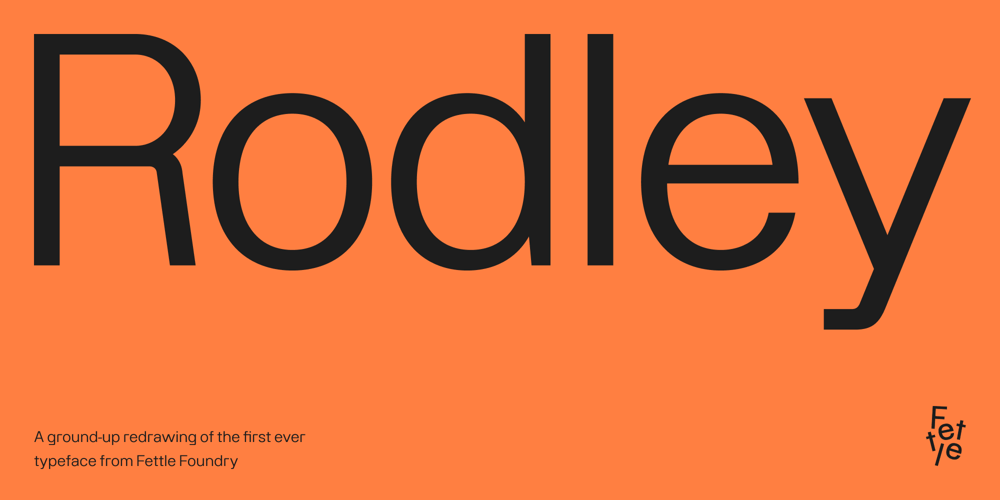
Rodley Font Family was designed by Thom Milson and published by Fettle Foundry. Rodley contains 10 styles and family package options. Rodley is a geometric sans-serif typeface and a ground-up redrawing of Bairne – the first ever typeface from Fettle Foundry – with a completely new character set that closer resembles the original vision for the typeface. The changes are so substantial that Rodley has taken on a life of its own, becoming a brand new typeface.Inspired by low-contrast Swiss and Modernist grotesque typefaces, with the addition of characterful geometric shapes, Rodley aims to be a more disruptive choice for brands, while retaining the appeal of those popular styles.Based upon a Latin S character set with additional glyphs, Rodley supports many latin-based languages, with a focus on pan-European and South American languages. Thorough kerning has been applied to uppercase/lowercase, uppercase/uppercase, lowercase/lowercase and CamelCase character combinations, with thorough attention paid to an incredibly large number of diacritical combinations.Available in 5 weights, from thin to bold, with matching italics, Rodley has been designed with a wide range of uses and sizes in mind.